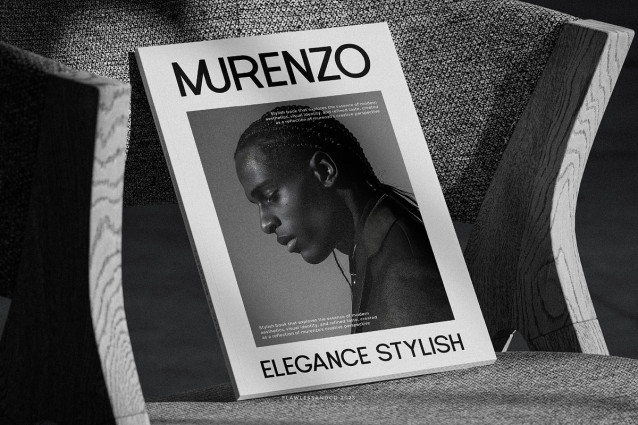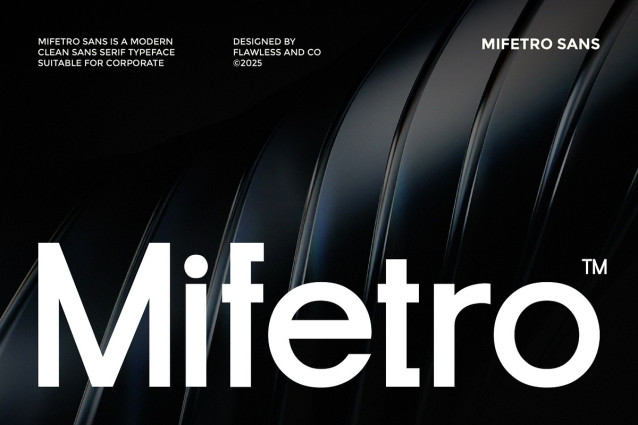
Mifetro Font
Mifetro Font is a modern clean sans serif typeface crafted for professional and corporate design needs. Built with precise geometry, balanced proportions, and clear letterforms, Mifetro delivers a sleek and contemporary appearance that communicates clarity, confidence, and reliability.